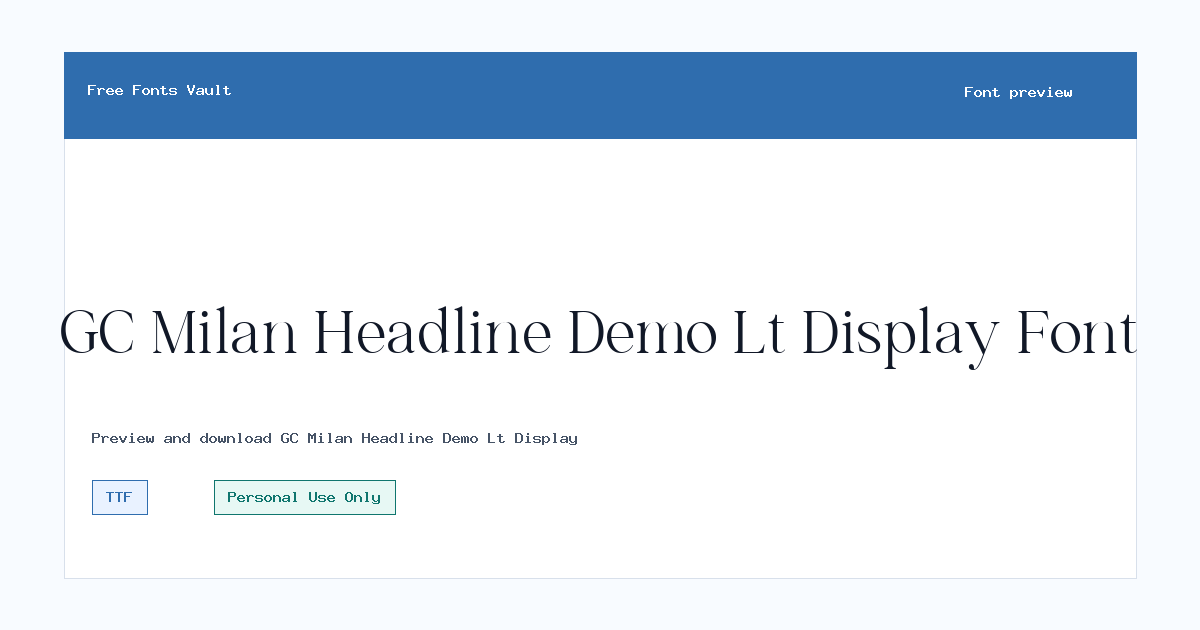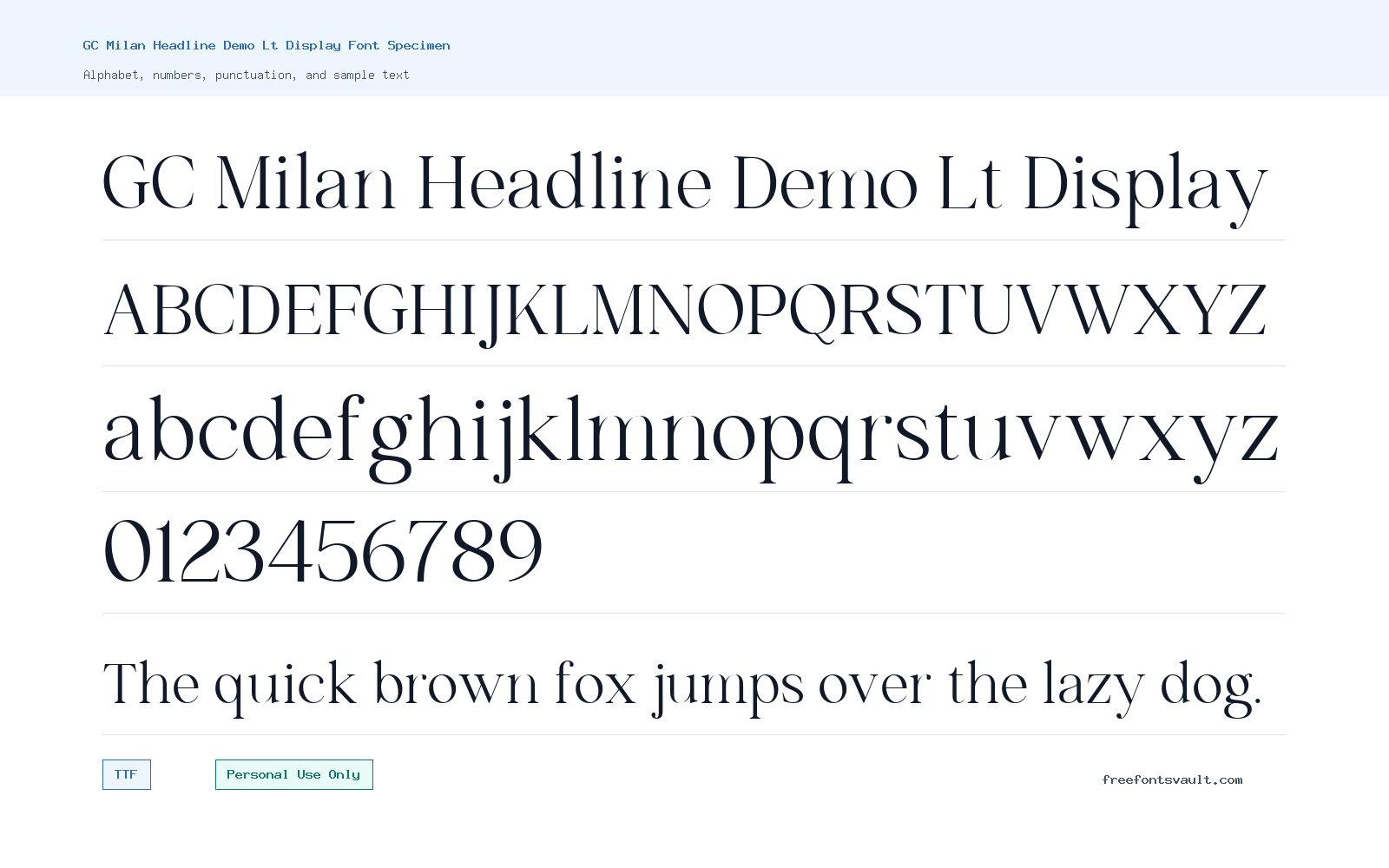
GC Milan Headline Demo Lt Display
- Designer Zainaldi Ibrahim of Glyphonic
GC Milan Headline Demo Lt Display is a light display cut from the GC Milan Headline serif family, designed for large, polished text rather than long reading passages.
About GC Milan Headline Demo Lt Display
GC Milan Headline Demo Lt Display works best when the type has room to breathe. The name points to a headline-focused serif style, and the Light Display cut suggests a finer, more delicate weight for titles, covers, invitations, editorial headers, and refined branding mockups. Use it where the words are short and the size is generous, because lighter display lettering can lose strength when reduced too far. It is a good option to test when you want a serif headline that feels elegant without becoming heavy or overly decorative.
- Light display serif style suited to large headline settings
- Part of the GC Milan Headline demo family naming
- Best used for short, high-impact text rather than body copy
- Editorial headlines and magazine-style title treatments
- Invitation headings, name cards, and refined event graphics
- Logo drafts, brand moodboards, and packaging mockups for personal projects
- Website hero titles, quote graphics, and social media headline text
The font is credited to Zainaldi Ibrahim of Glyphonic.
Use this light display cut at larger sizes, with enough spacing and contrast. Avoid relying on it for small captions, dense paragraphs, or low-resolution graphics where fine strokes may become hard to read.
What kind of font is GC Milan Headline Demo Lt Display?
It is presented as a headline serif display font. The Light Display name makes it most suitable for larger titles and short text treatments.
Can I use this font for body text?
It is not the best choice for long paragraphs. Use it for headings or short feature text, then pair it with a more readable text font for longer copy.